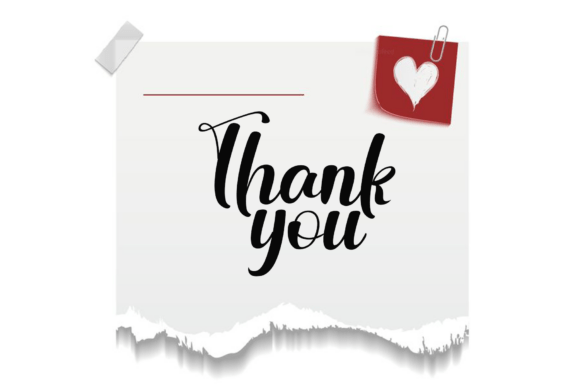
Introduction to Mama Dream Font
There’s something magical about finding the perfect font for a creative project – it’s like stumbling upon a hidden treasure that brings your design to life. For designers, this moment is especially sweet, as the right font can make all the difference in elevating a project from good to great. And for those who’ve been searching for that perfect, elegant touch, the Mama Dream Font is sure to be a game-changer.
As a stylish and incredibly elegant script font, Mama Dream Font is perfect for a wide range of design projects, from wedding invitations and thank you cards to logos and business cards. With its high-quality design and transparent background, this font is a valuable resource for designers who want to add a handwritten touch to their work.
Key Features of Mama Dream Font
- Unique Hand-Drawn Design: Mama Dream Font features a beautiful, hand-drawn design perfect for creative projects that require a personal touch.
- Perfect for Design Projects: This font is ideal for use in creative projects such as invitations, greeting cards, and other design materials that require a touch of elegance and sophistication.
Honest Review: Mama Dream Font
I recently stumbled upon the Mama Dream Font while searching for a free download for a creative project, and I must say I’m quite impressed.
- High-quality design: The Mama Dream Font boasts a unique and stylish aesthetic that’s perfect for creative projects.
- Transparent background: This feature makes it easy to overlay the font on various backgrounds without any hassle.
- Limited character set: The Mama Dream Font may not have a comprehensive character set, which could be a drawback for designers who require a wider range of characters.
- Not suitable for large-scale projects: Due to its relatively small file size, the font might not be ideal for large-scale projects that require high-resolution images.
Overall, I’m pleased with the Mama Dream Font, and I’d recommend it for small-scale creative projects or as a design resource for personal use. However, designers working on large-scale projects or requiring a comprehensive character set may want to explore other options.
Tips for Getting the Most Out of Mama Dream Font
To get the most out of the Mama Dream Font, use it in conjunction with other design elements to create a cohesive look. Experiment with different font sizes, colors, and arrangements to achieve the desired effect.
Common Use Cases for Mama Dream Font
The Mama Dream Font is commonly used in creative projects such as graphics design, logo design, and print materials. It is also used in digital design, such as designing social media posts and presentations.